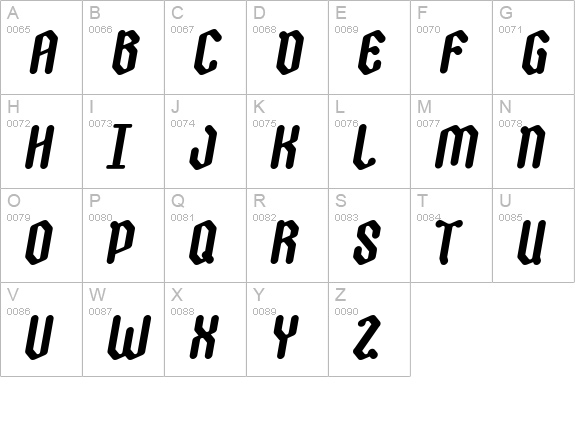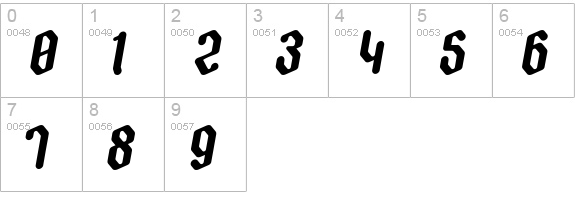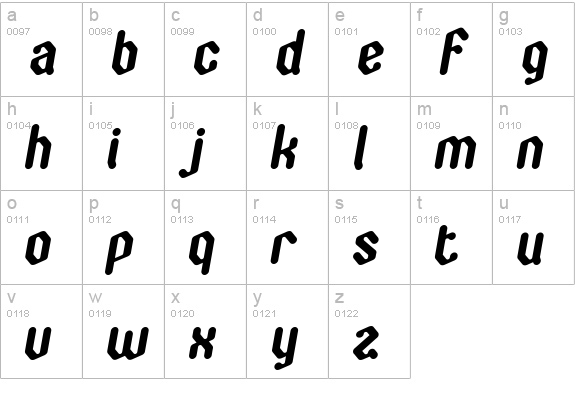
Zygoth Font Details
Introducing Zygoth font, a stunning display typeface that combines elegance with modernity. With its sleek lines and sharp edges, Zygoth font is perfect for creating eye-catching designs that demand attention. Whether you're designing a logo, poster, or website, Zygoth font will add a touch of sophistication to your project. What's even better is that Zygoth font is completely free to download at FontsMarket.com. That's right, you can elevate your designs without breaking the bank. Don't miss out on the opportunity to enhance your creative endeavors with the stylish and versatile Zygoth font. Download it now and start creating visually stunning designs today!